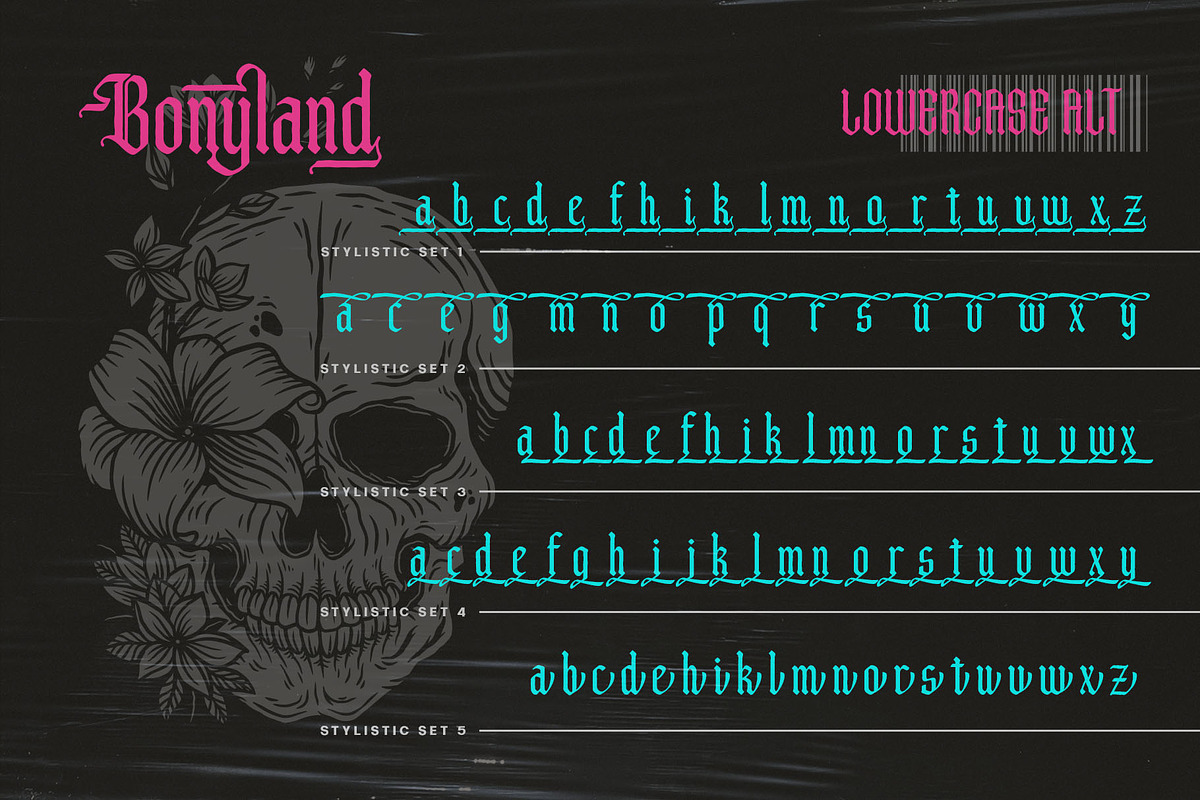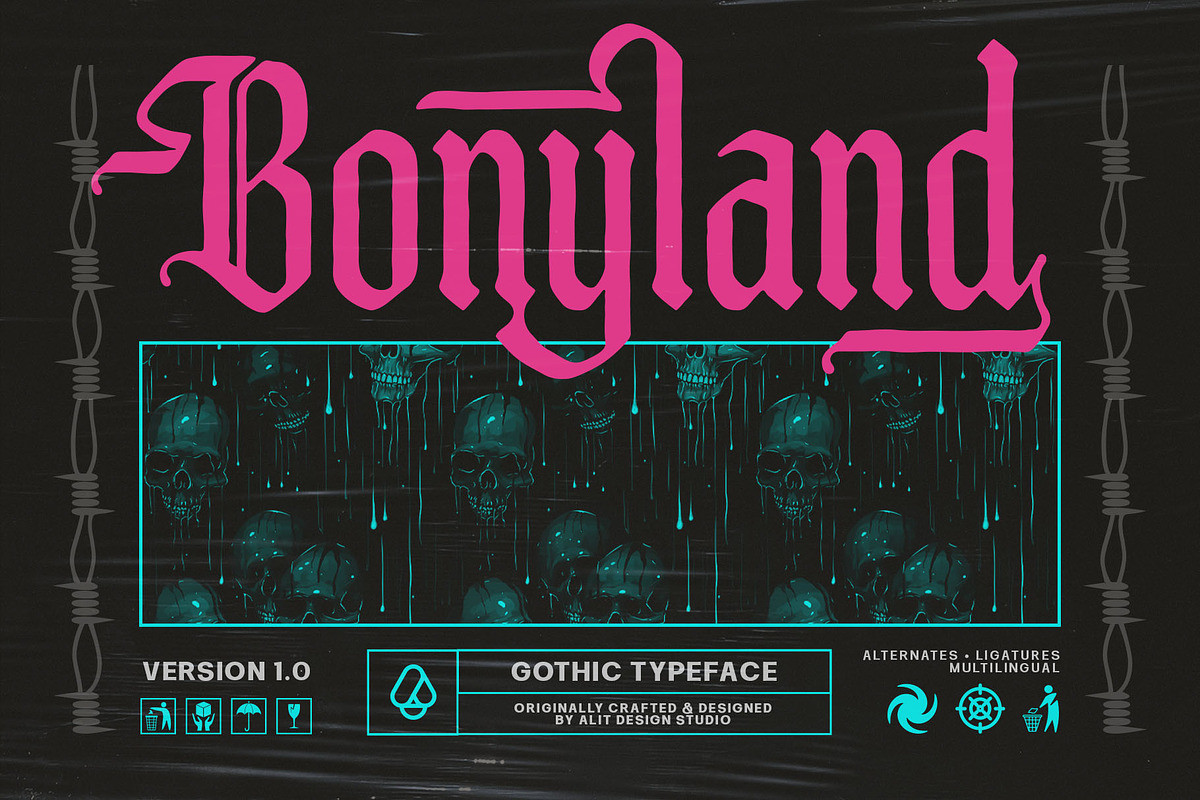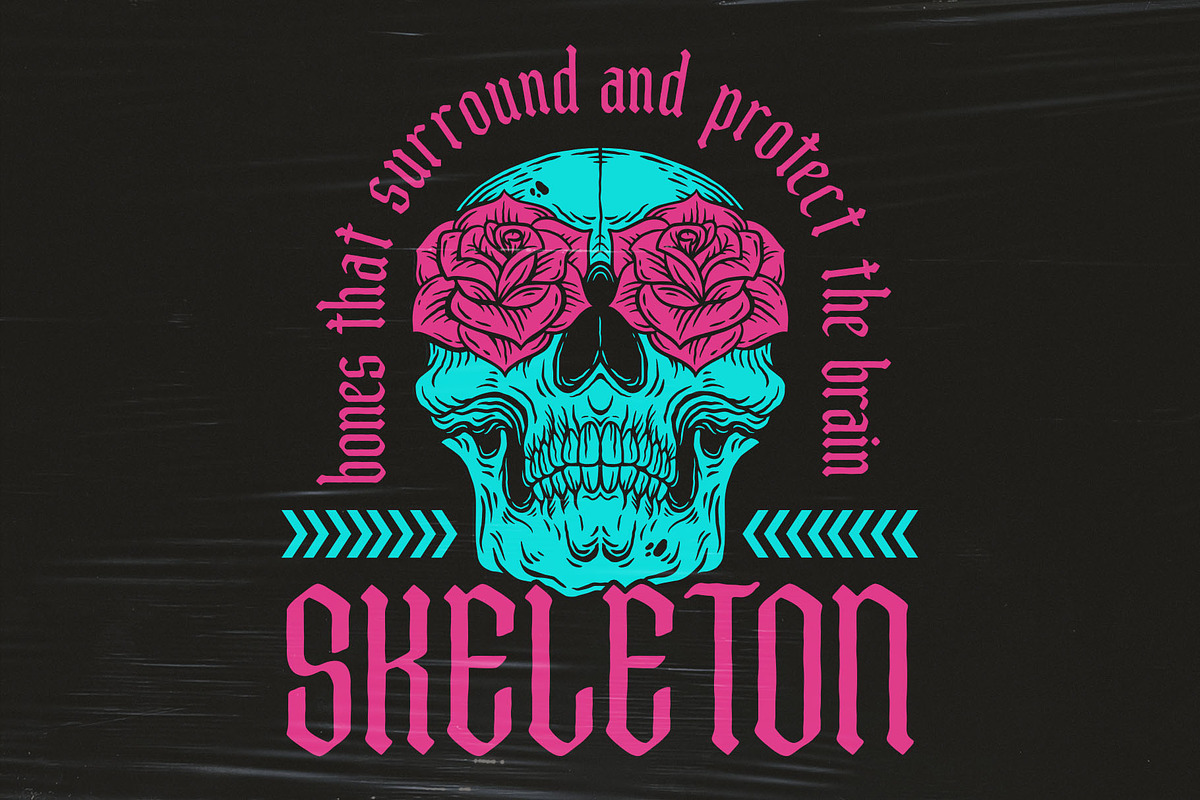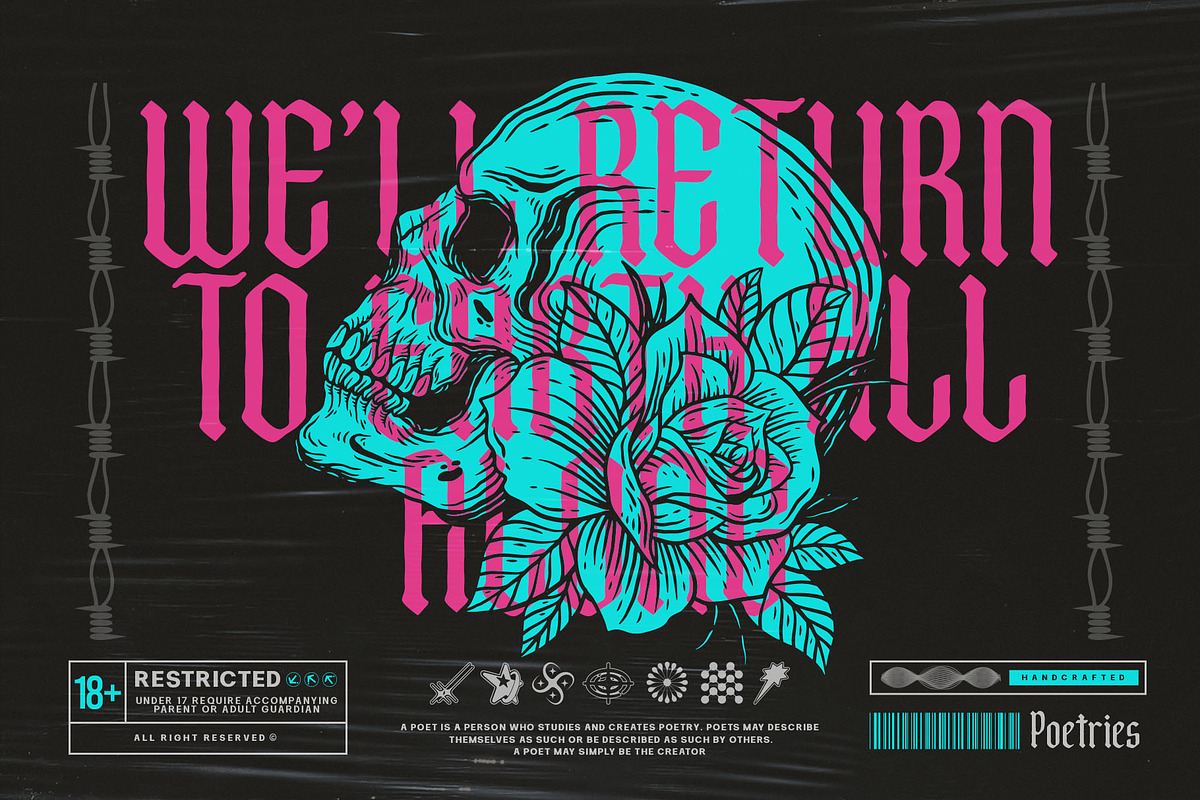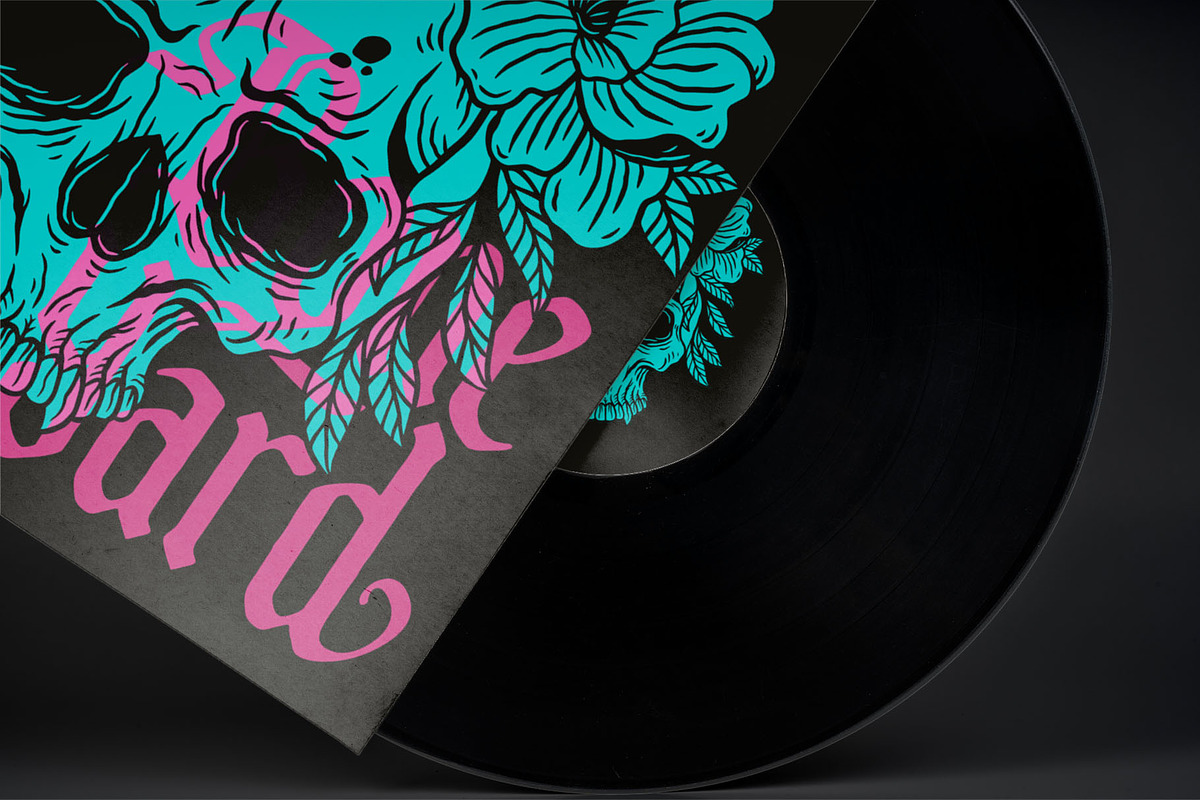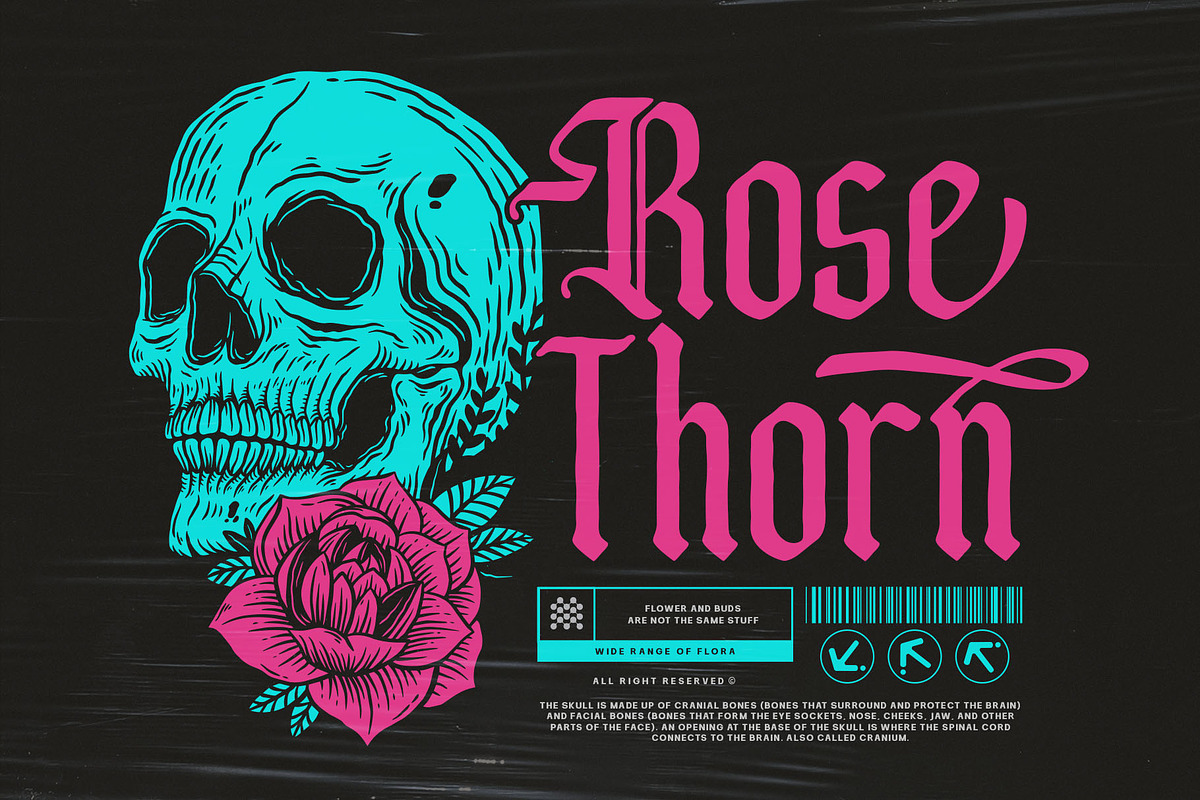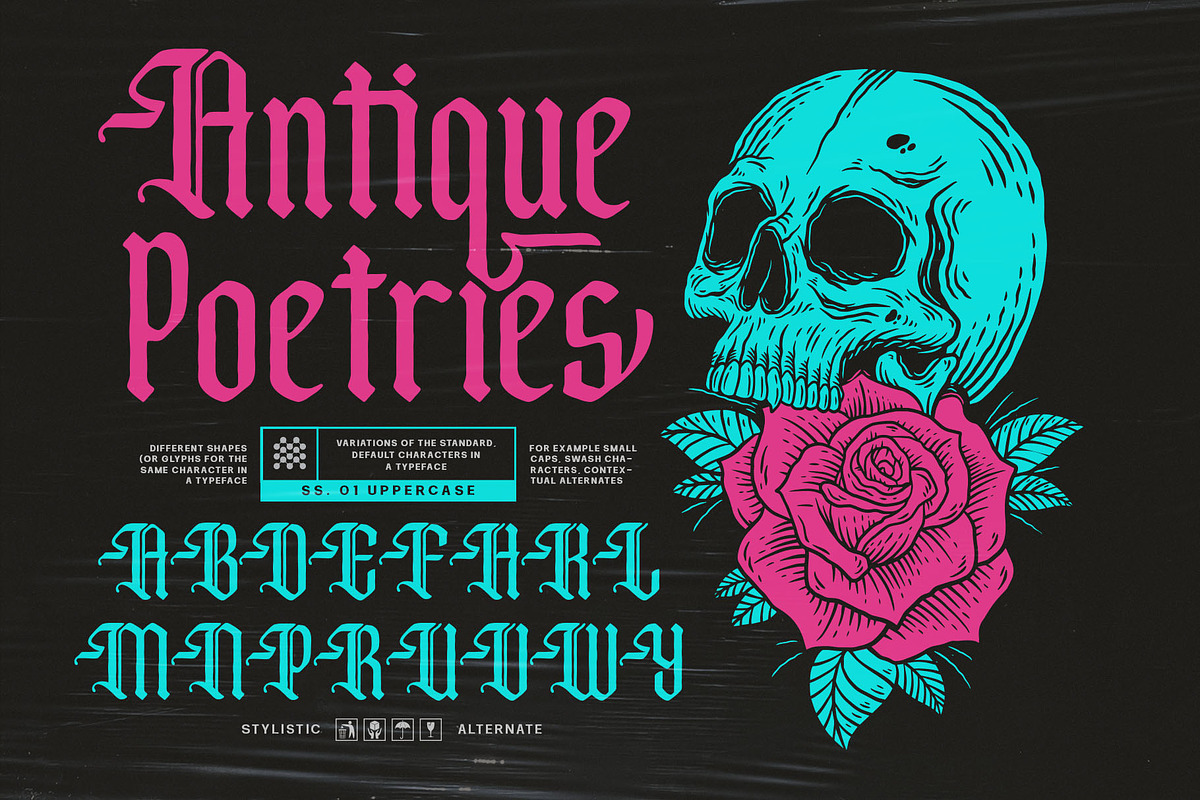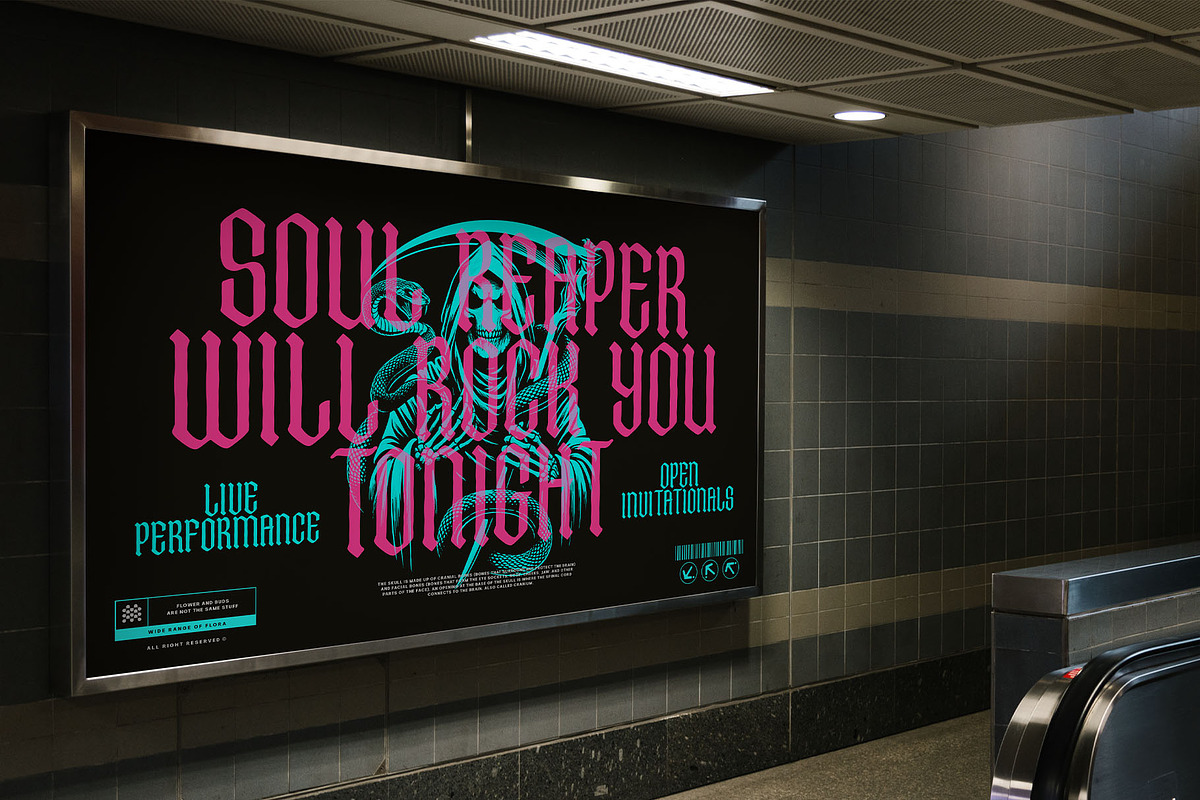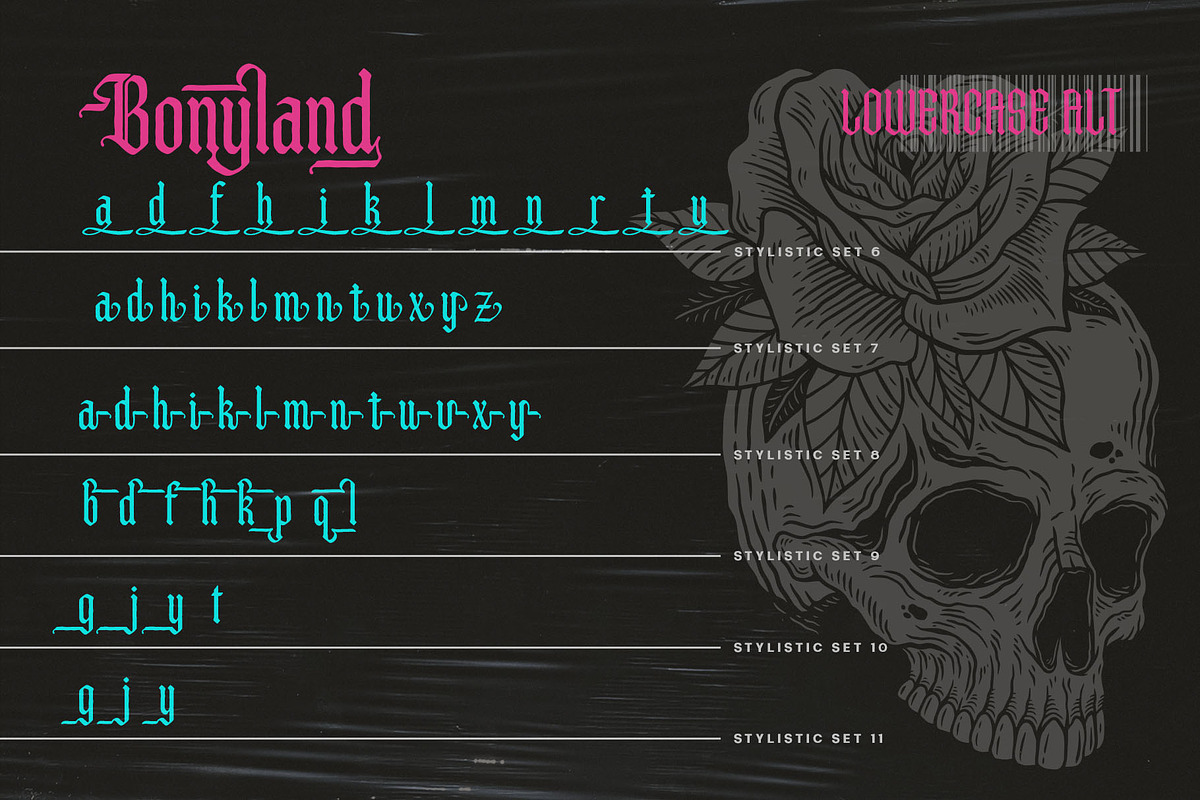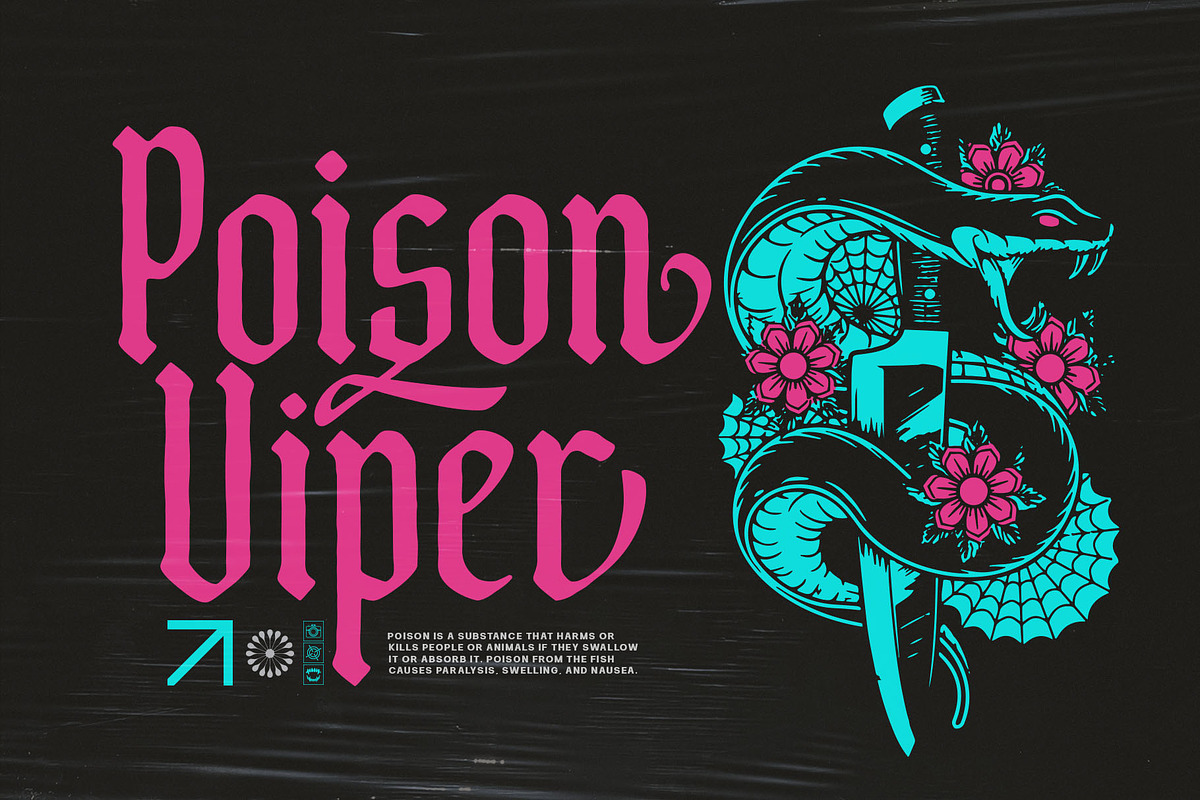
Bonyland Blackletter Font
Unleash the raw power of vintage typography with Bonyland Blackletter Font. This distinctive typeface embodies the rugged elegance of old-world craftsmanship, delivering a striking blackletter style infused with a rough, timeworn texture. Perfect for projects that demand an air of boldness and authenticity, Bonyland Blackletter evokes the timeless spirit of medieval manuscripts and gothic artistry, yet with a modern edge.
- Rough Vintage Texture: Aged, distressed detailing that adds a layer of historical authenticity to your designs.
- Bold Blackletter Style: Strong, dramatic strokes that command attention, ideal for headlines, logos, posters, and branding.
- Versatile Application: Perfect for creating a vintage aesthetic in everything from album covers to tattoo designs, and from book titles to promotional materials.
- Complete Character Set: Includes uppercase, lowercase, numerals, punctuation, and multilingual support.
With Bonyland Blackletter Font, every word is a statement, steeped in tradition yet unafraid to stand out. Add this font to your collection and bring a piece of the past into your modern designs.